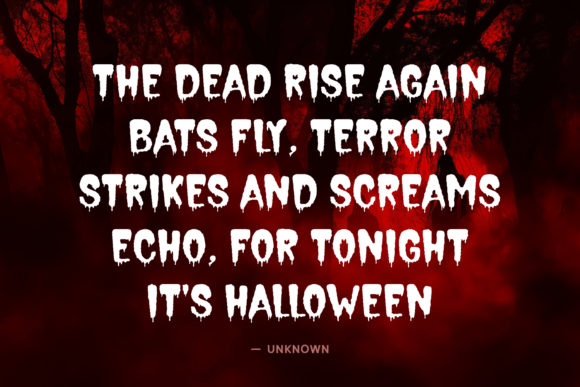
Hunting Zombies Font: The Ultimate Typographic Experience for Halloween Enthusiasts
Are you ready to embark on an eerie typographic adventure? Look no further than the “Hunting Zombies” font, a dynamic display font designed to set the perfect Halloween mood. With its spook-tacular style, this font can effortlessly transform your party invites, ghost stories, and other creative projects into a hauntingly beautiful experience.
Key Features of Hunting Zombies Font
- Dynamic Display Font: Hunting Zombies is a dynamic display font that can add a touch of spookiness to any project.
- Halloween-themed: The font is designed to set the perfect Halloween mood, making it ideal for party invites, ghost stories, and other Halloween-themed projects.
- Spook-tacular Style: The font features a unique blend of scary and spooky elements, making it perfect for haunted house signage, zombie-themed newsletters, and other creative projects.
- Smooth Strokes: The font boasts boo-tifully smooth strokes that can add a touch of elegance to your blood-chilling tales.
- Versatile: Hunting Zombies is a versatile font that can be used in a wide range of applications, from cover art to magazine spreads, greeting cards, and quotes.
10 Creative Ways to Use Hunting Zombies Font
- Party Invites: Use Hunting Zombies to create spooky party invites that will set the tone for a hauntingly fun celebration.
- Ghost Stories: Add a touch of eeriness to your ghost stories with this font, perfect for authors and writers looking to create a chilling atmosphere.
- Haunted House Signage: Create eye-catching signage for haunted houses, haunted attractions, or spooky events with this font.
- Zombie-themed Newsletters: Use Hunting Zombies to create newsletters that are sure to delight zombie enthusiasts and fans of the undead.
- Apparel Branding: Add a frighteningly fun touch to your apparel brand with this font, perfect for creating unique and eye-catching designs.
- Cover Art: Use Hunting Zombies to create stunning cover art for books, magazines, or other publications that require a touch of spookiness.
- Magazine Spreads: Add a touch of eeriness to your magazine spreads with this font, perfect for creating eye-catching layouts and designs.
- Greeting Cards: Create unique and spooky greeting cards for Halloween or other occasions with Hunting Zombies.
- Quotes: Use this font to create eye-catching quotes that are sure to add a touch of spookiness to any room or design.
- Logo Types: Create unique and memorable logo types for your brand or business with Hunting Zombies.
The Benefits of Using Hunting Zombies Font
- Authenticity: Hunting Zombies offers an authentic and unique typographic experience that is sure to set your designs apart.
- Versatility: The font is versatile and can be used in a wide range of applications, from digital to print.
- High-quality: The font is high-quality and features smooth, clean lines that are sure to add a touch of elegance to your designs.
- Trendy: Hunting Zombies is a trendy font that is sure to be a hit with modern bloggers, Instagram influencers, and website designers.
Who is Hunting Zombies Font for?
Hunting Zombies font is perfect for:
- Halloween enthusiasts: If you love Halloween and are looking for a font that can add a touch of spookiness to your designs, Hunting Zombies is the perfect choice.
- Graphic designers: Graphic designers looking for a unique and versatile font to add to their collection will love Hunting Zombies.
- Bloggers: Bloggers who want to create eye-catching and spooky content will find Hunting Zombies to be the perfect font.
- Instagram influencers: Instagram influencers looking for a font that can help them stand out from the crowd will love Hunting Zombies.
- Website designers: Website designers looking for a font that can add a touch of eeriness to their designs will find Hunting Zombies to be the perfect choice.
What Users are Saying About Hunting Zombies Font
“Hunting Zombies font is the perfect addition to my design collection. It’s spooky, versatile, and easy to use. I’ve already used it in several projects and can’t wait to see what else I can create with it!”
Emily, Graphic Designer
“I was blown away by the quality and uniqueness of Hunting Zombies font. It’s the perfect font for my Halloween-themed blog and has really helped me to stand out from the crowd.”
In conclusion, Hunting Zombies font is the ultimate typographic experience for Halloween enthusiasts. With its spook-tacular style, versatility, and ease of use, it’s the perfect font for anyone looking to add a touch of eeriness to their designs. Whether you’re a graphic designer, blogger, or website designer, Hunting Zombies font is sure to be a hit. So why wait? Download it today and start creating your own hauntingly beautiful projects.